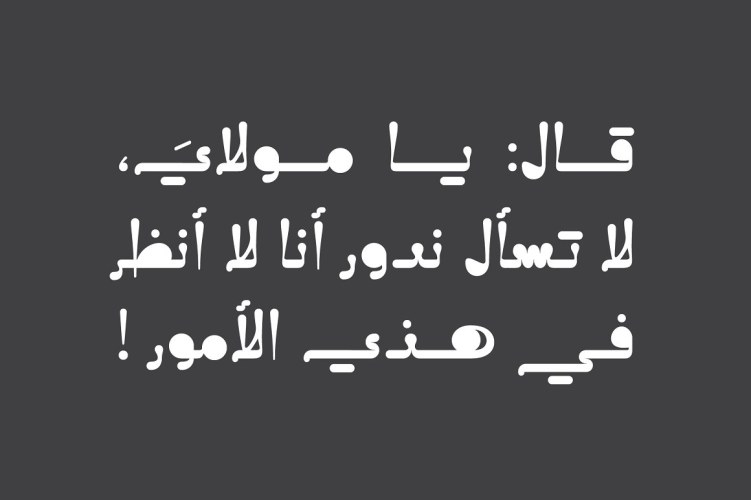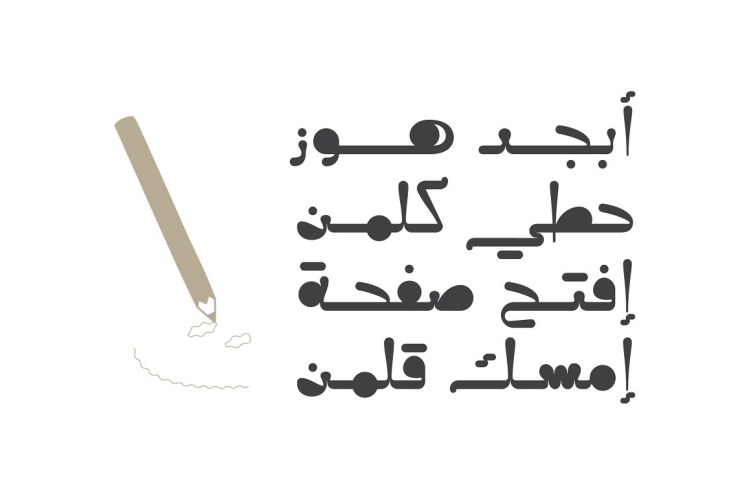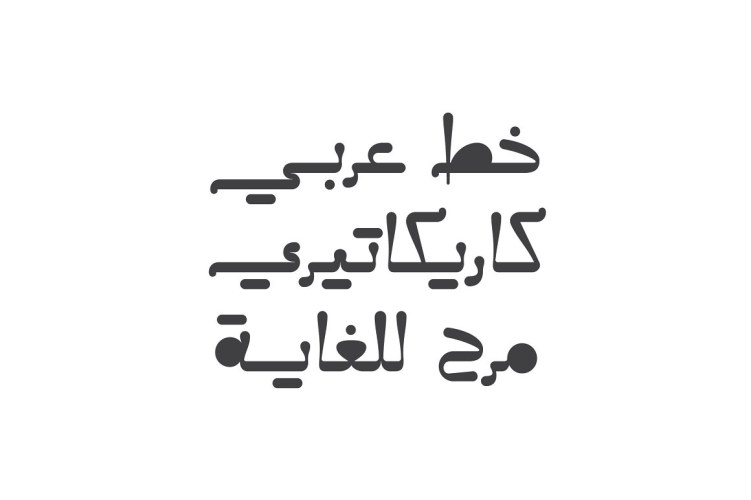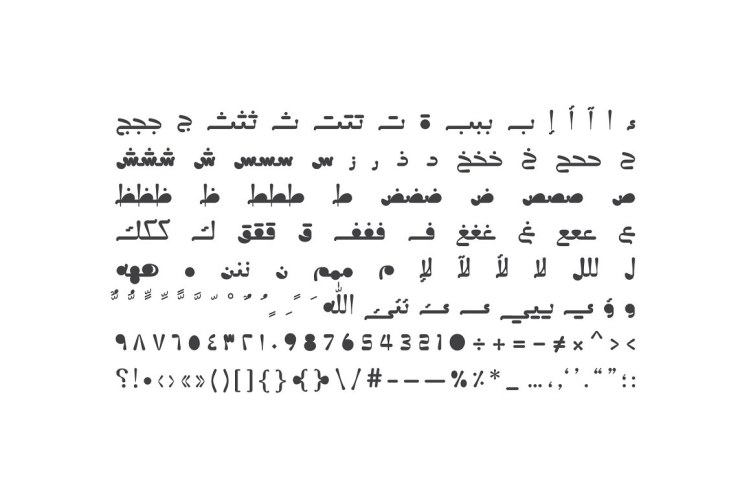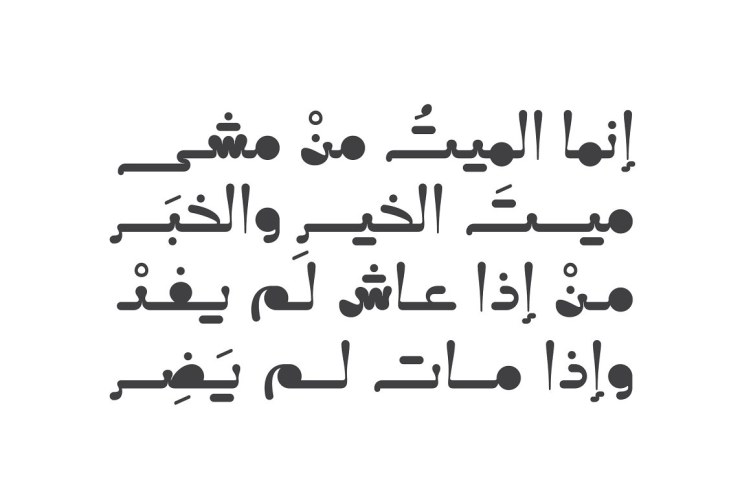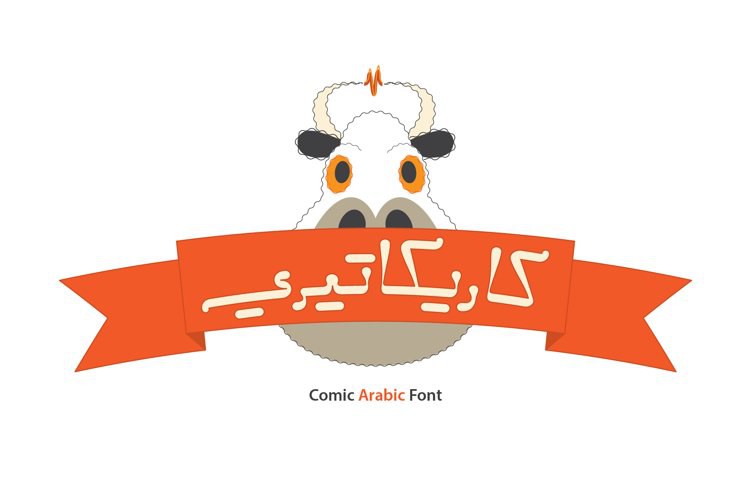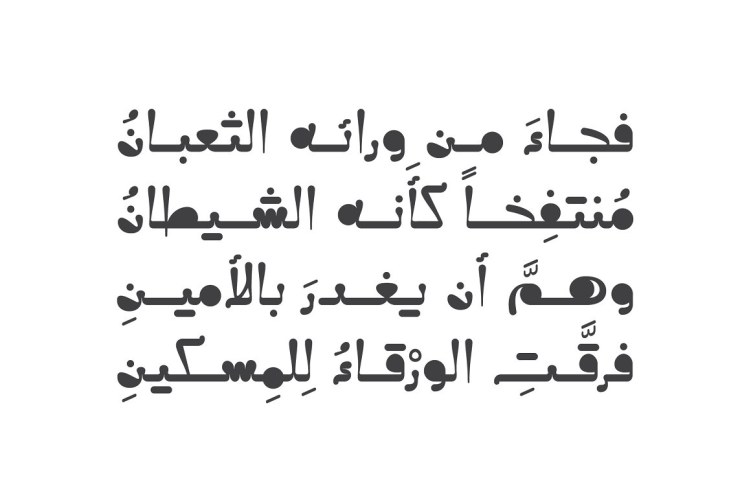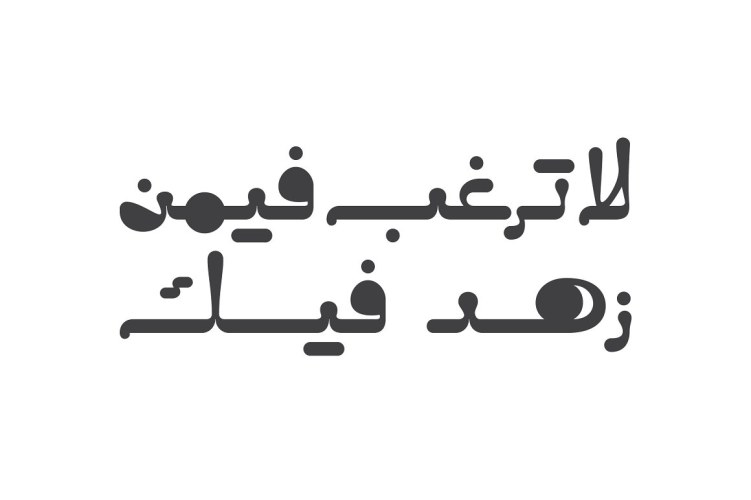
Caricaturey – Arabic Font
Caricaturey is an Arabic display font that features a humorous letterform design. The font tries to simulate the uneven ink flow effect that reflects a caricature-like style. Caricaturey is a very good companion to comics, caricature drawings in addition to other design projects.
Where Caricaturey – Arabic Font works best
Arabic branding & signage
Caricaturey – Arabic Font supports Arabic-script identities, storefront signage and packaging across the MENA region.
Editorial & publishing
Suitable for Arabic magazines, book covers and cultural event posters.
Bilingual design
Pair Caricaturey – Arabic Font with a Latin sans for bilingual websites, menus and campaigns.
What is Caricaturey – Arabic Font good for?